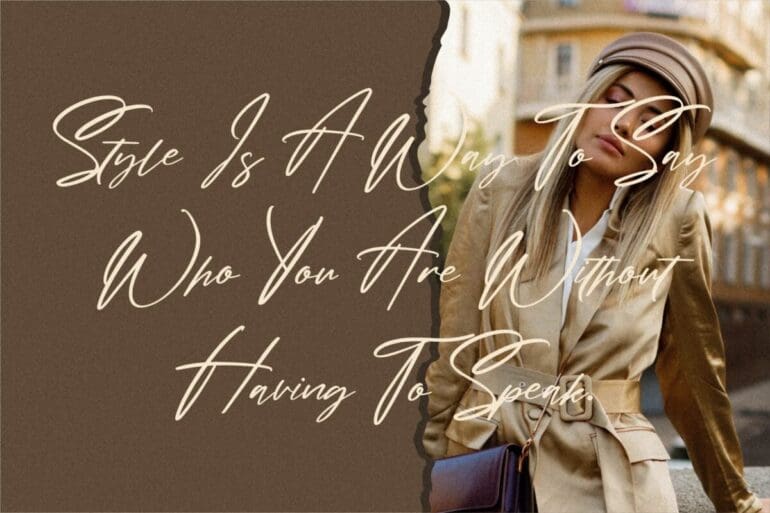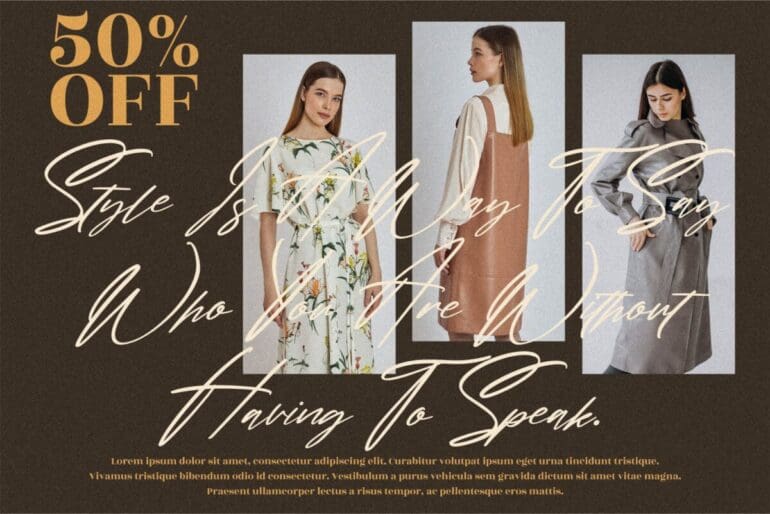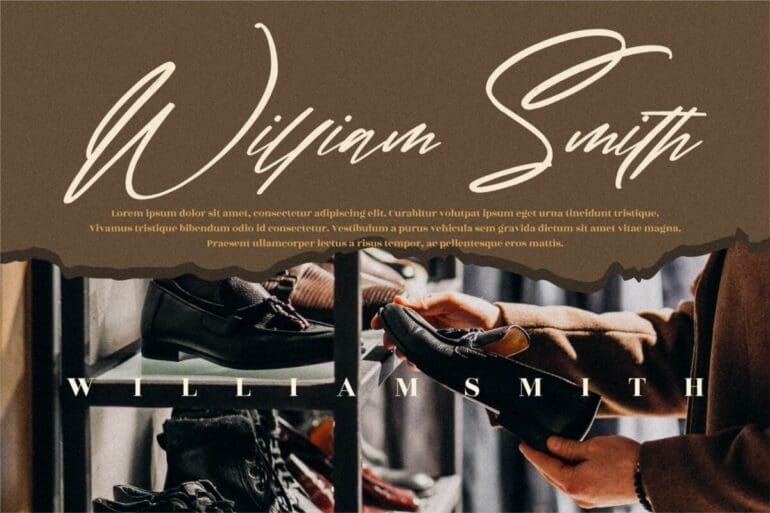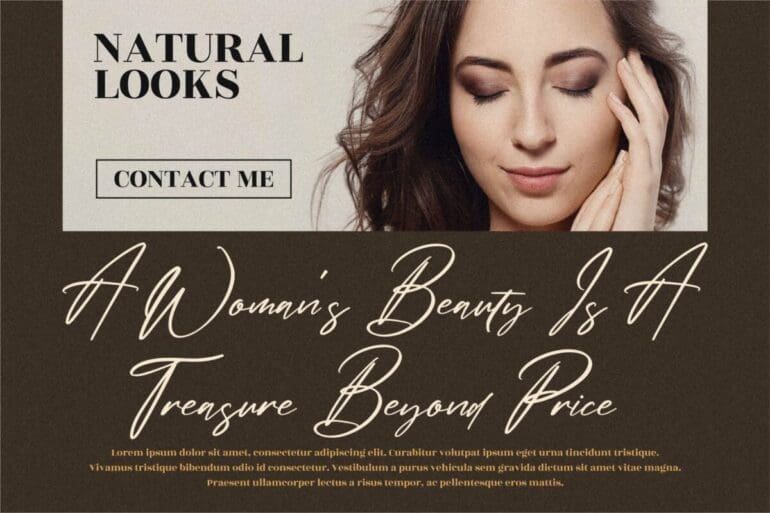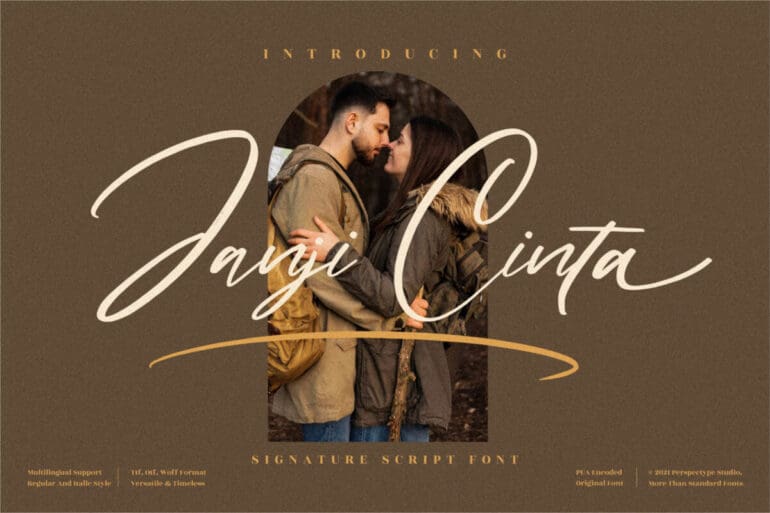
Janji Cinta Font
Janji Cinta is an exquisite Signature Font. Genuine and beautifully flowing, this typeface can elevate the look of any lovely creations such as wedding invitations, birthday cards, name tags, labels, professional logos, and so much more!